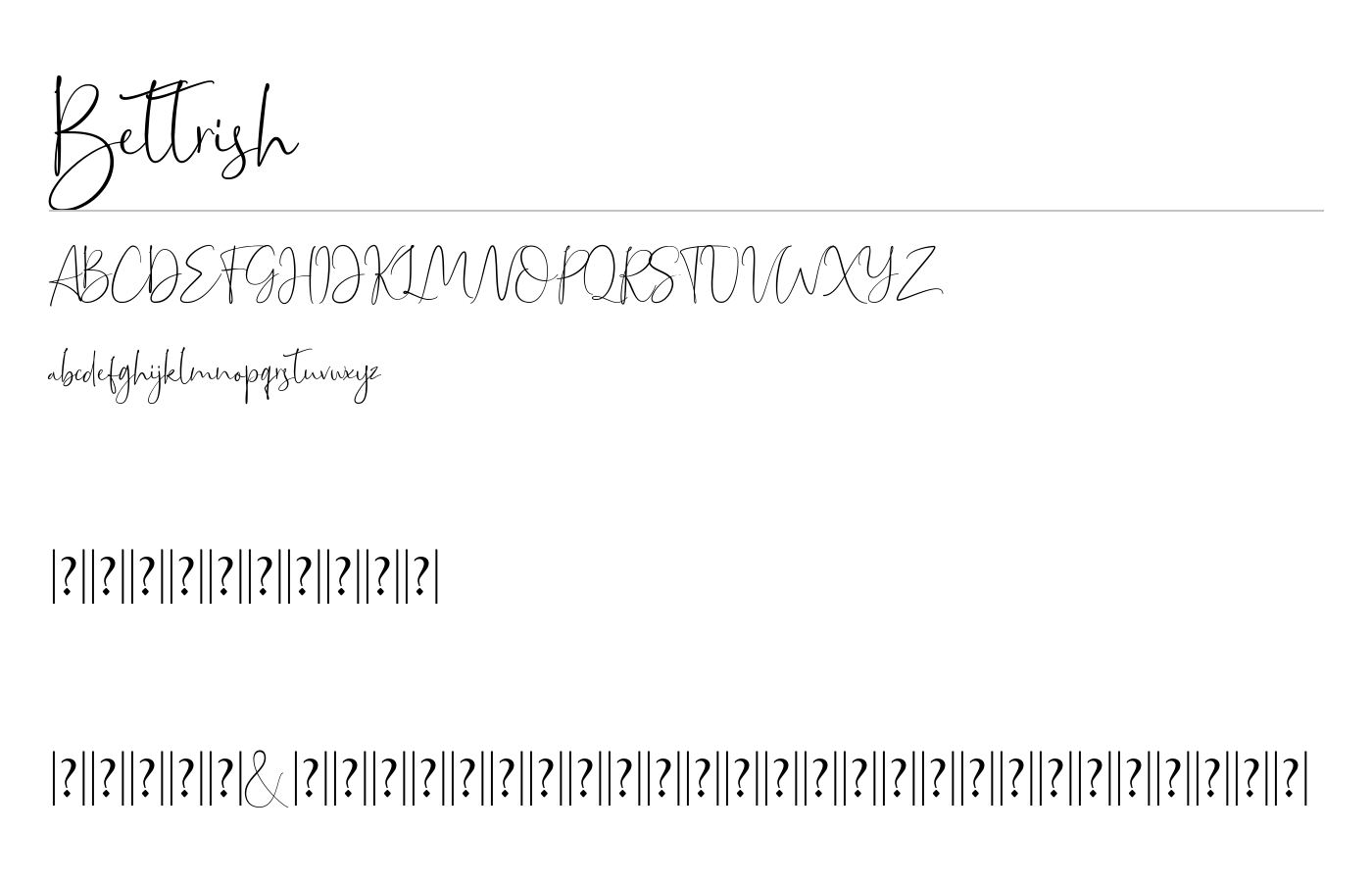
Bettrish is an elegant, delicate script font with a light, airy feel created by its thin, flowing strokes and tall, slender letterforms. Its hand-drawn style exudes a modern, sophisticated charm, making it ideal for fashion, wedding invitations, branding, and any design that seeks a personal yet refined touch. This font shines in headlines and logos where a graceful, stylish appearance is desired.
Bettrish Font